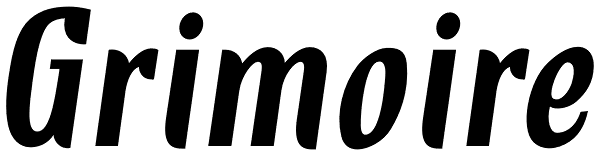
Grimoire
Grimoire on the other hand combines two seemingly contradicting principles — calligraphic and constructive ideas — and makes them work together. The font is based on a modular system but simulates a handwritten typeface. Felix Braden about this...